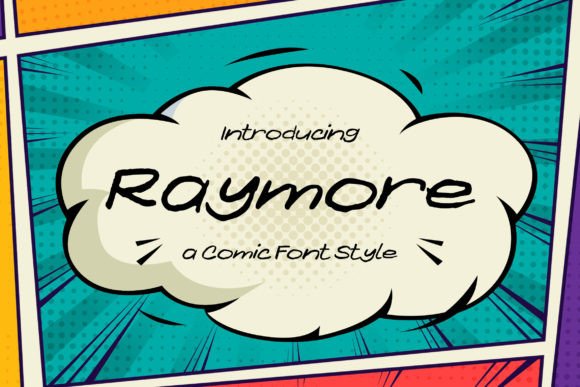
Welcome to the world of Raymore Font, a script font family that will transform your creative resume into an enchanting masterpiece. Designed by TypeFactory, Raymore is a playful and personal font that exudes character and uniqueness. With its simple comic handwritten style, it's perfect for adding a touch of whimsy and charm to your professional documents.
Using Raymore Font is like stepping into a whimsical wonderland, where creativity knows no bounds. Its unique style is guaranteed to leave a lasting impression on potential employers, making your resume stand out from the crowd. It's the perfect font for showcasing your personality and passion, ensuring that your resume reflects your true essence.
With Raymore Font, you can weave a captivating narrative that will transport recruiters into your creative world. Let the flowing lines and playful characters guide them on a journey through your skills, experiences, and aspirations. Each letter dances across the page, creating a visual symphony that captures attention and ignites curiosity.
Raymore Font is not just another font; it's an artistic expression that speaks volumes about your creativity and professionalism. It's a testament to your eye for detail and your commitment to excellence. When you use Raymore Font, you're making a statement, declaring to the world that you are a creative force to be reckoned with.
So, embrace the magic of Raymore Font and let your resume radiate with creativity and charm. It's the perfect font for those who dare to be different, for those who want to leave a lasting impression, and for those who believe that a resume should be a reflection of their true selves.